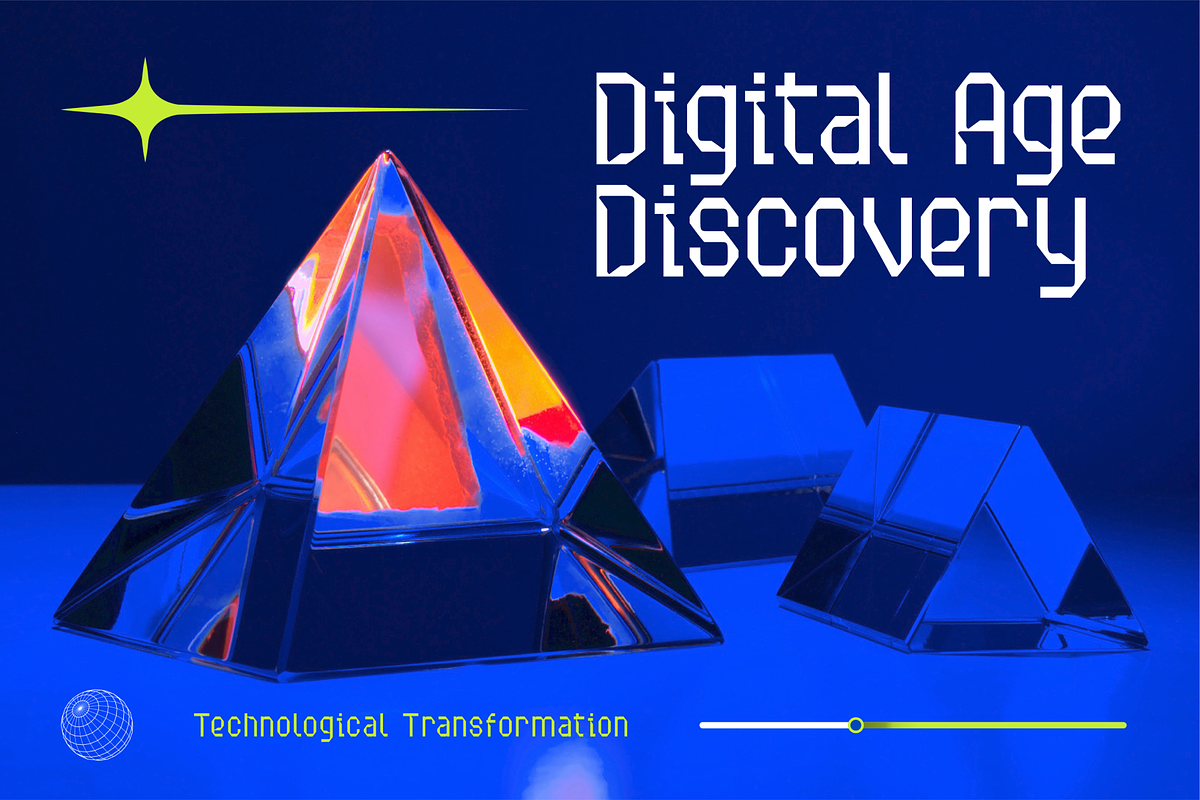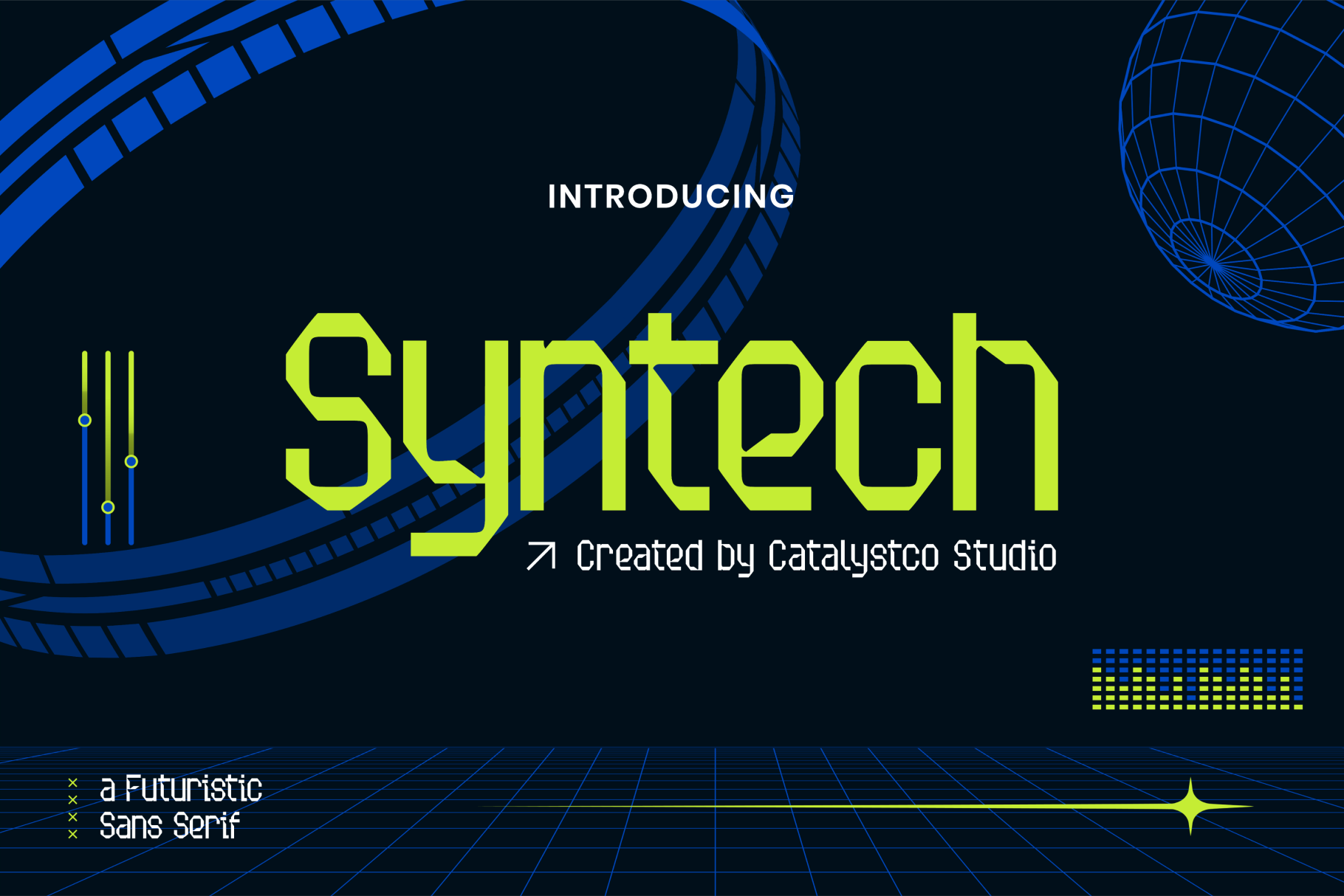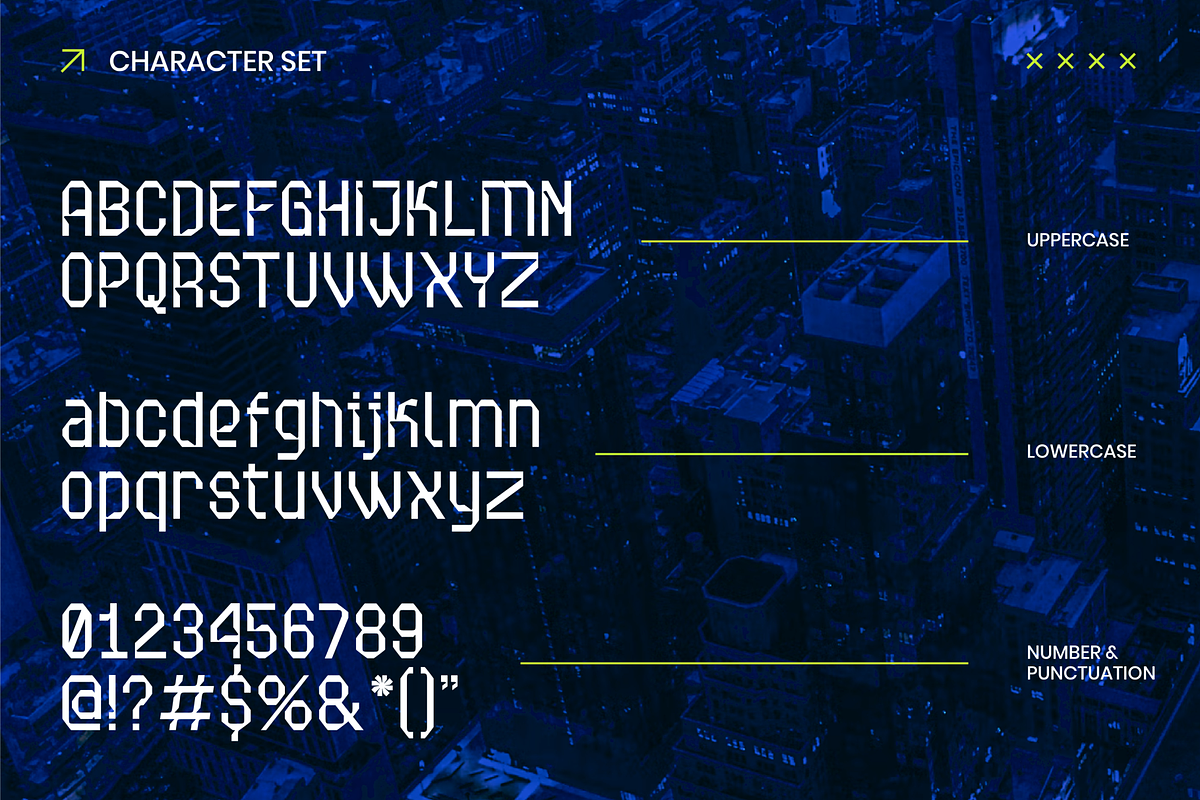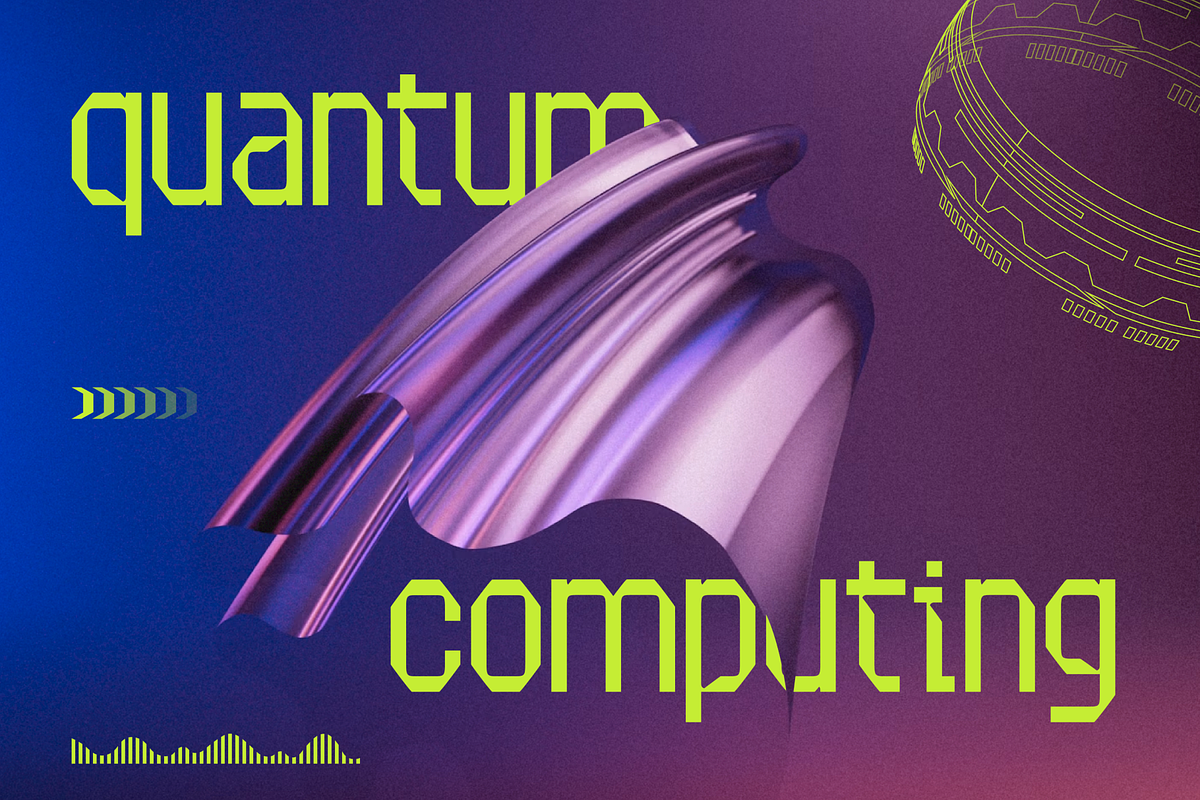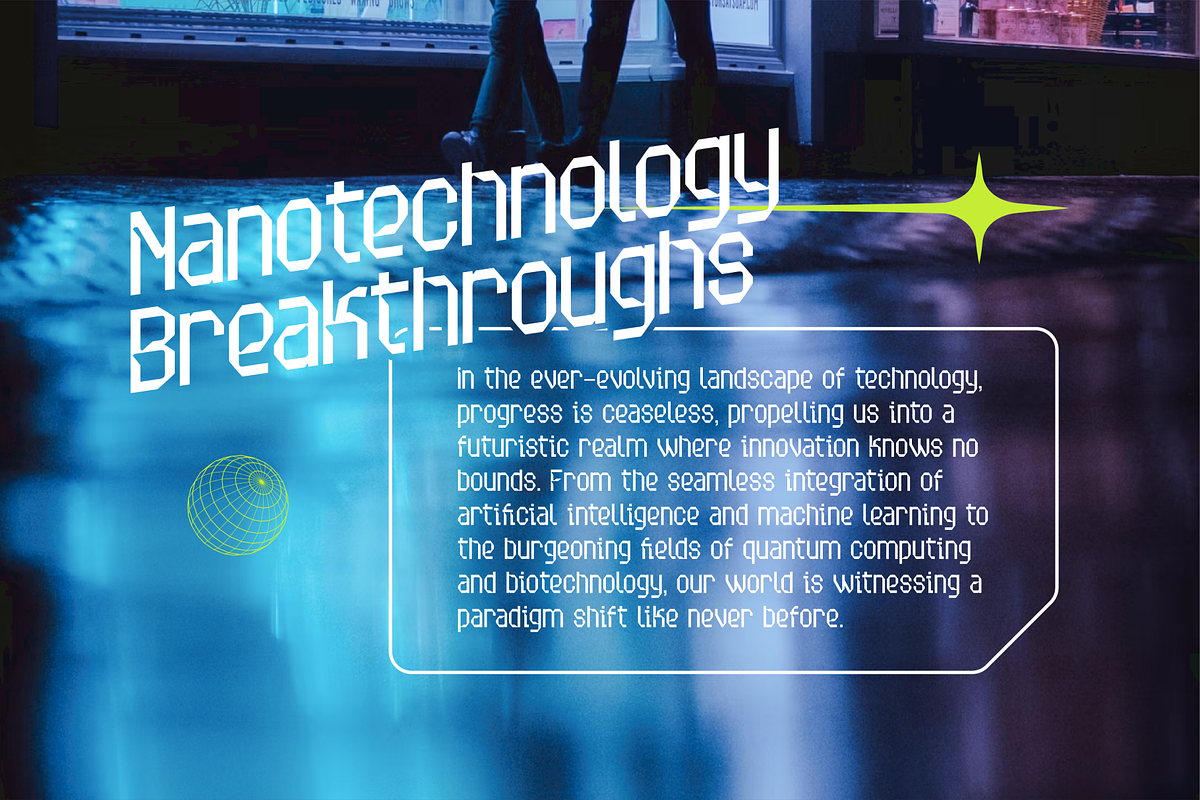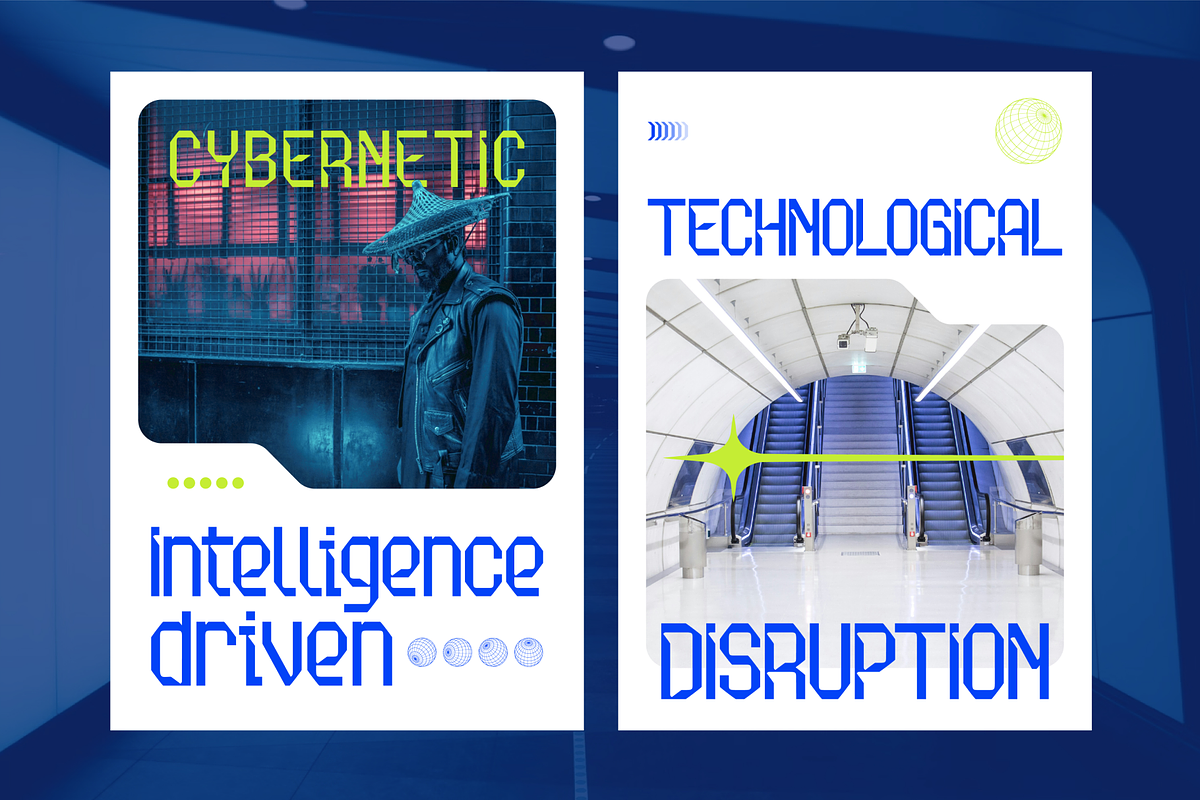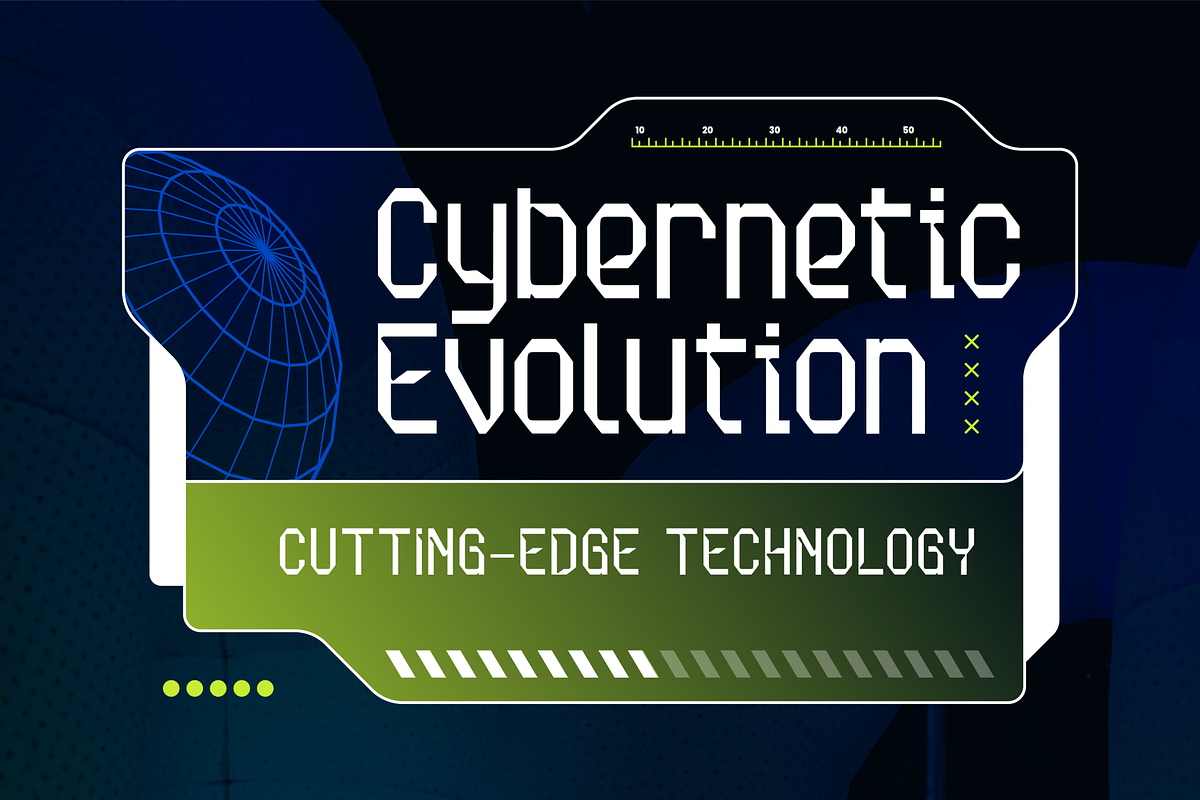
Syntech Futuristic Sans Serif Font
Syntech Futuristic Sans Serif Font typeface excellent used for the manufacture quote text, logotype, header magazine, and many more.